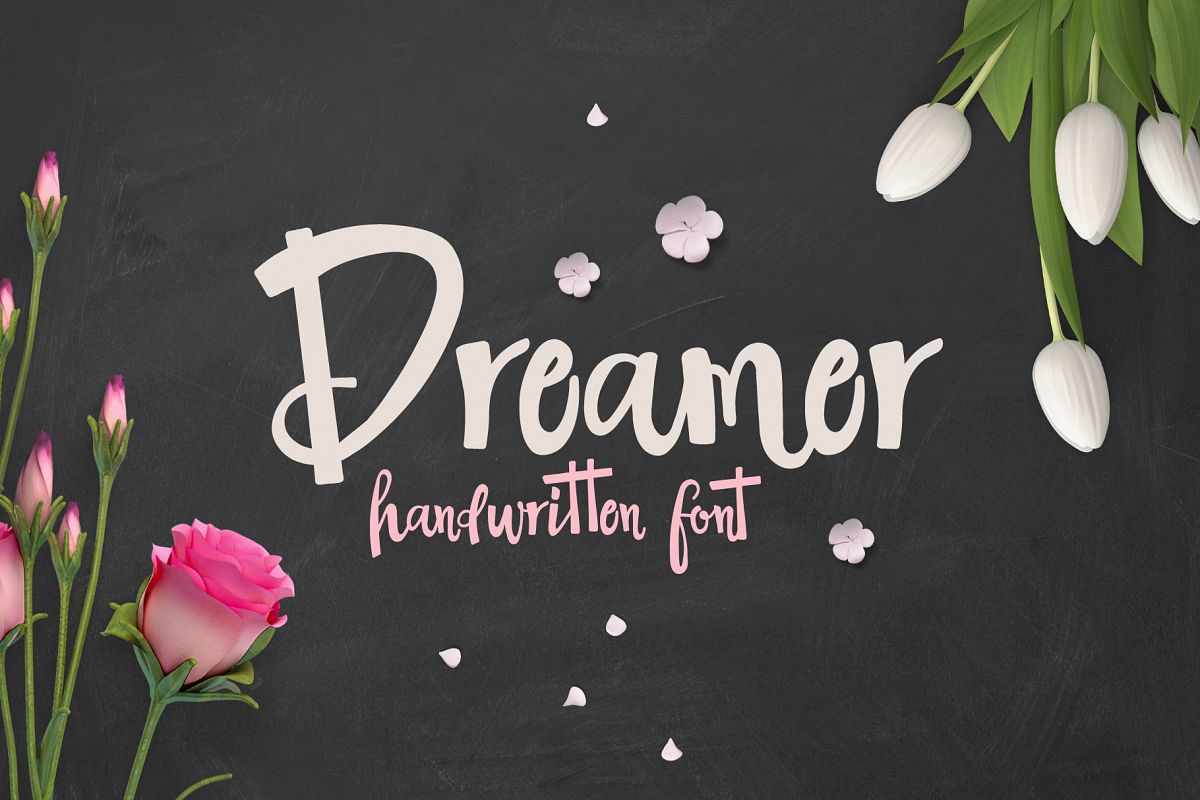
The Dreamer Font
Dreamer is a modern calligraphy font. Dreamer a beautiful for logotype, website header, fashion design,wedding card design and any more. It contains a full set of lower & uppercase letters, a large range of punctuation and numerals.Whats Include :